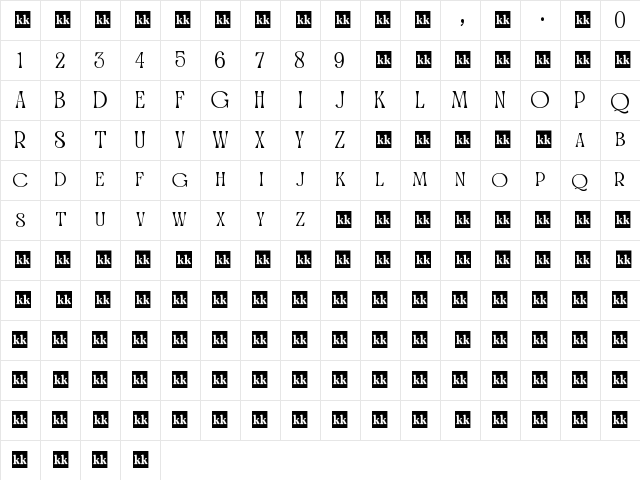
Awesome Lathusca Regular
Foundry: Kulokale Studio
Designer: M Arif Dwi Prasetyo & Eko Nurcahyo
Design Context for Awesome Lathusca
Awesome Lathusca is a composed and adaptable typeface that performs quietly and consistently across a wide range of design contexts.